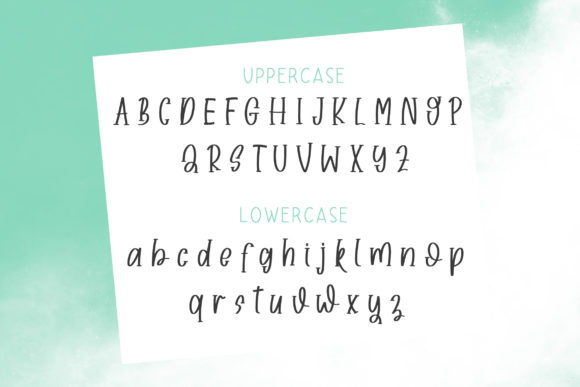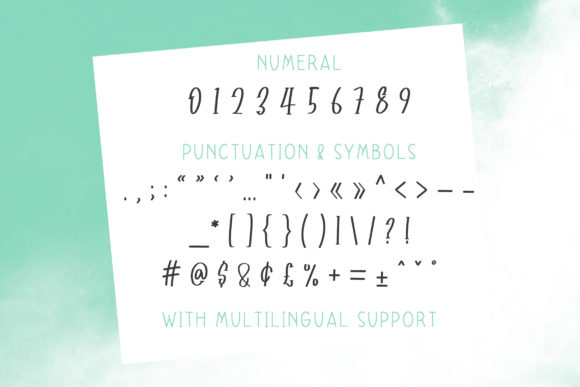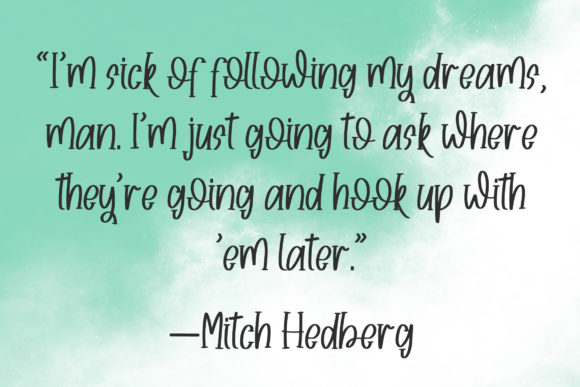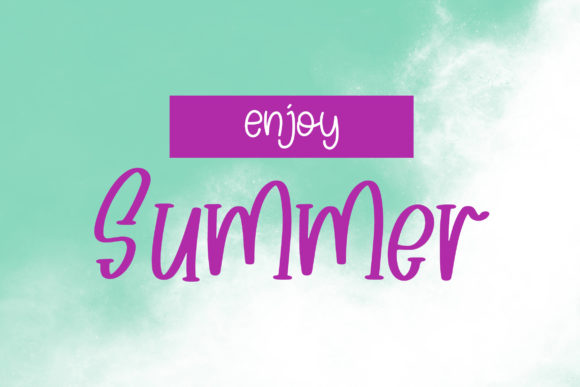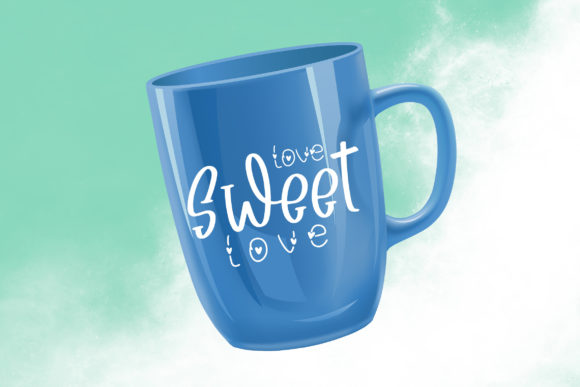
About Orlandomy Font
Orlandomy is a cute and quirky handwritten font. Sweet and playful, this typeface can elevate the look of any creation ranging from product packaging to business cards, and more!